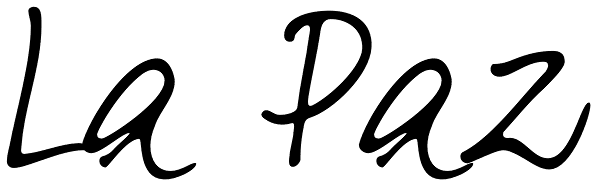
La Paz
La Paz is a typeface created to emulate handwriting. It consists of three different alphabets which are interleaved to provide variations in height, weight and inclination, typical of handwriting. In addition it has tens of ligatures, ornaments and...